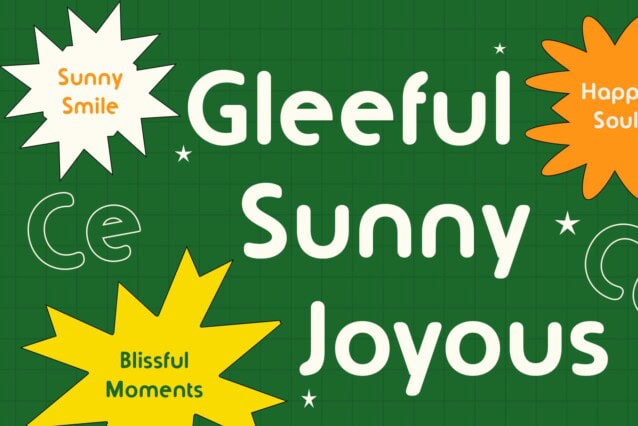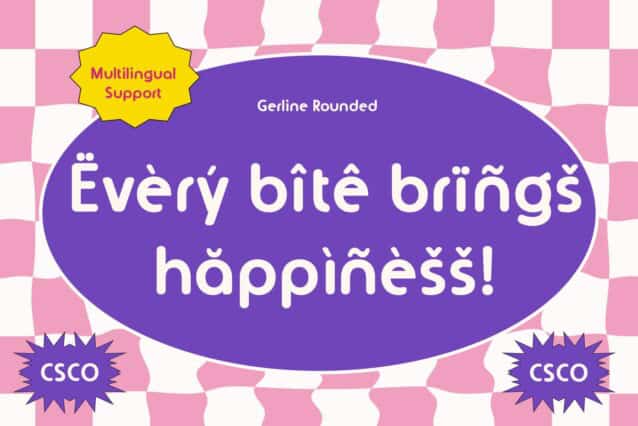
Gerline Rounded Font
Gerline Rounded Font is a modern sans-serif font that combines contemporary geometric forms with smooth, rounded corners. The clean, simple lines of the font ensure excellent readability, while the bold strokes and geometric shapes provide a structured, strong appearance. This combination results in a sophisticated and modern design, perfect for professional applications.